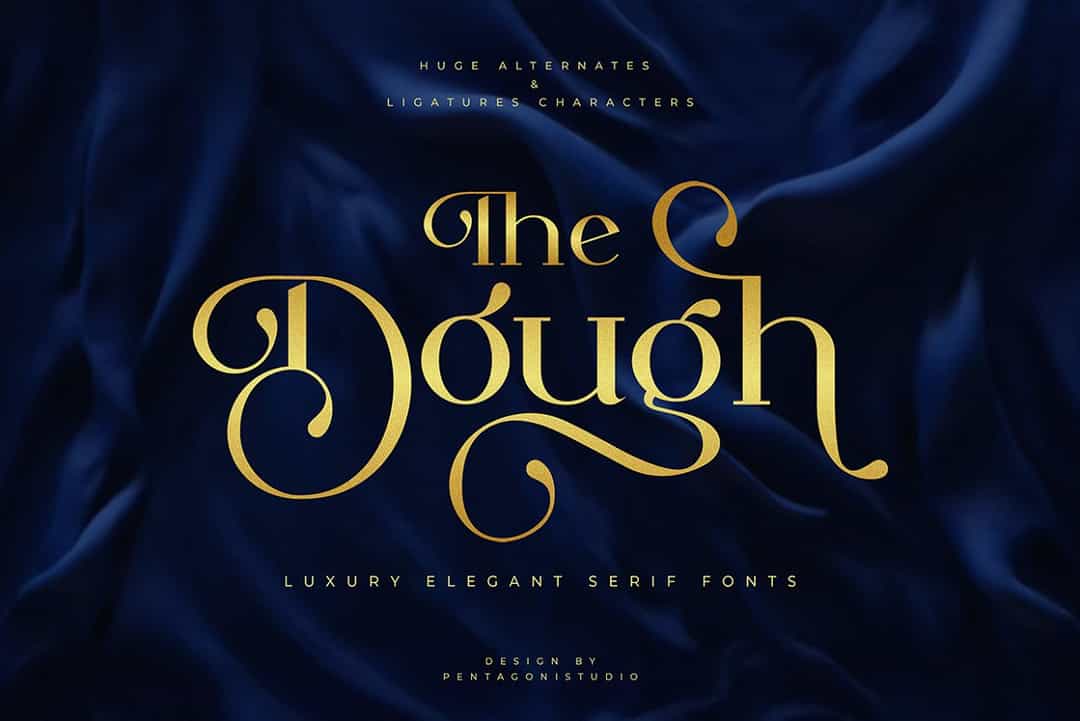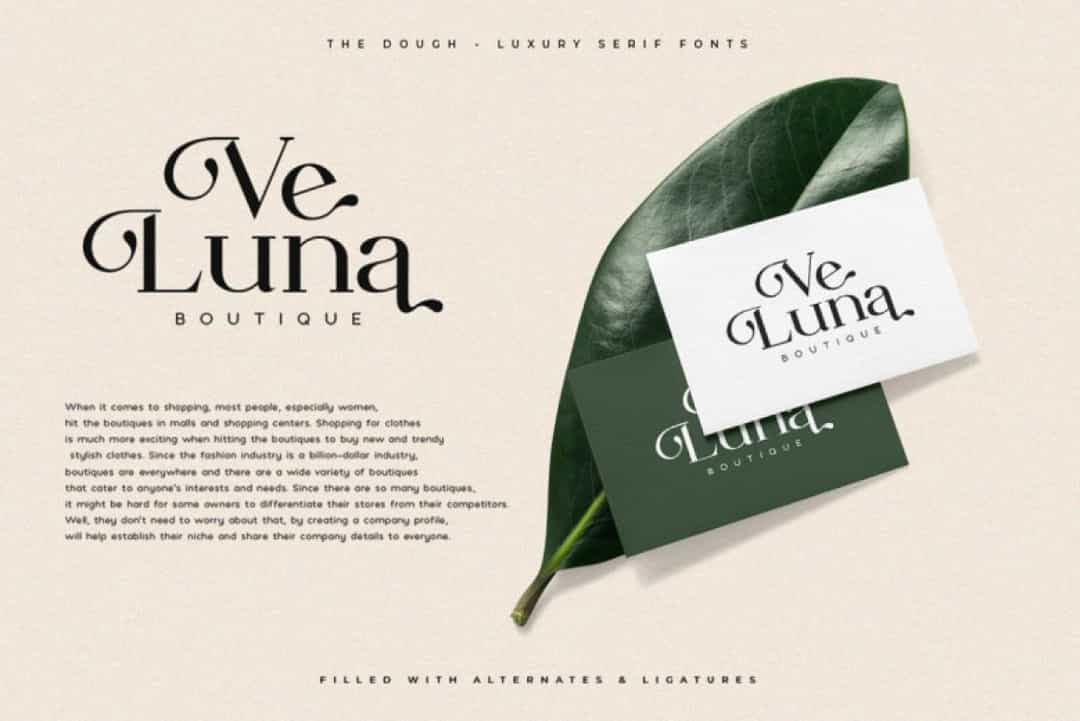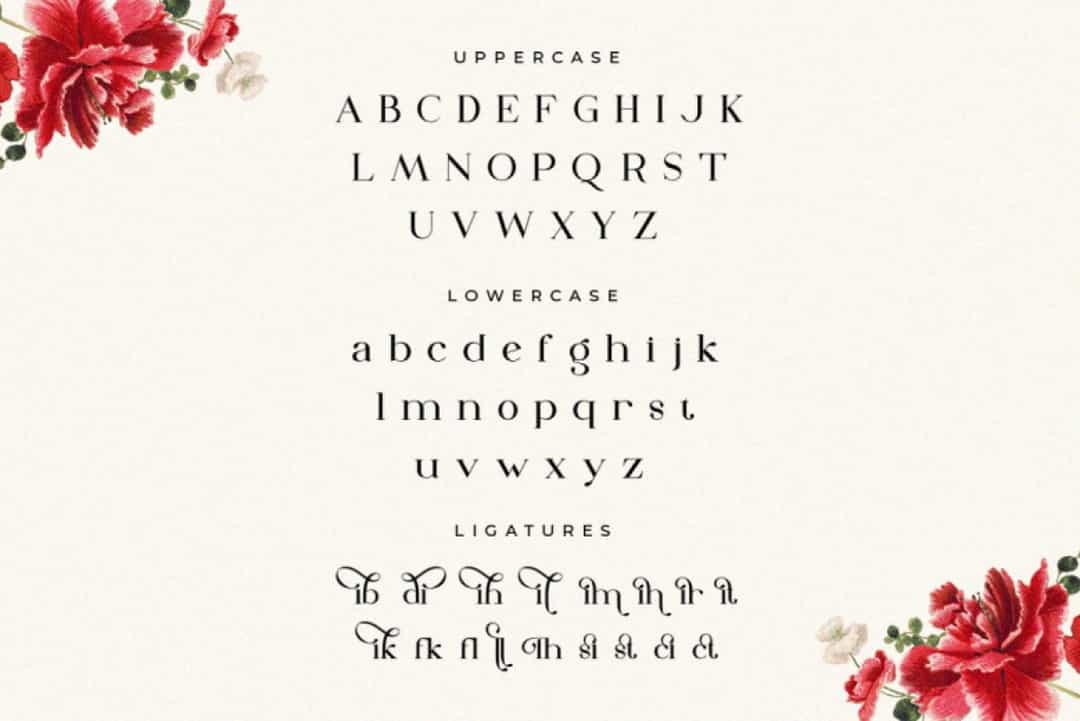
The Dough is an elegant and luxurious serif font inspired by high-end serif typefaces, ideal for branding projects, logo design, clothing branding packaging product packaging magazine headers or simply as an image background text overlay.